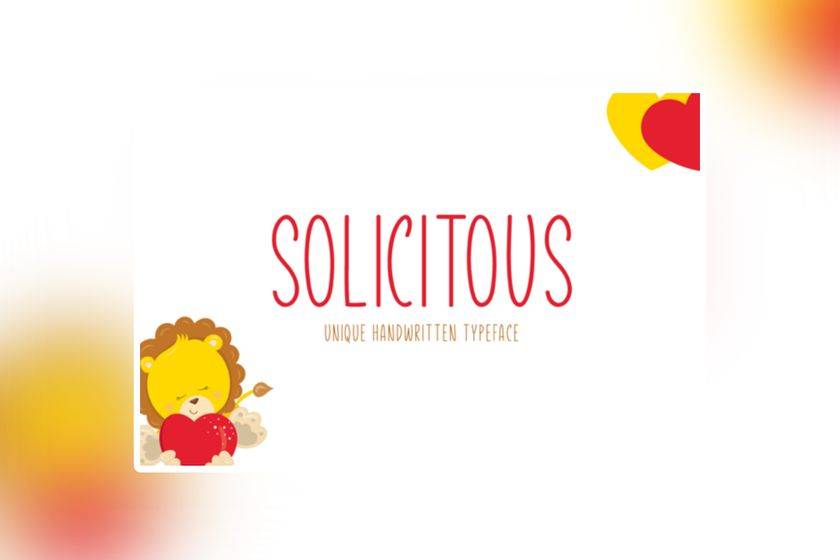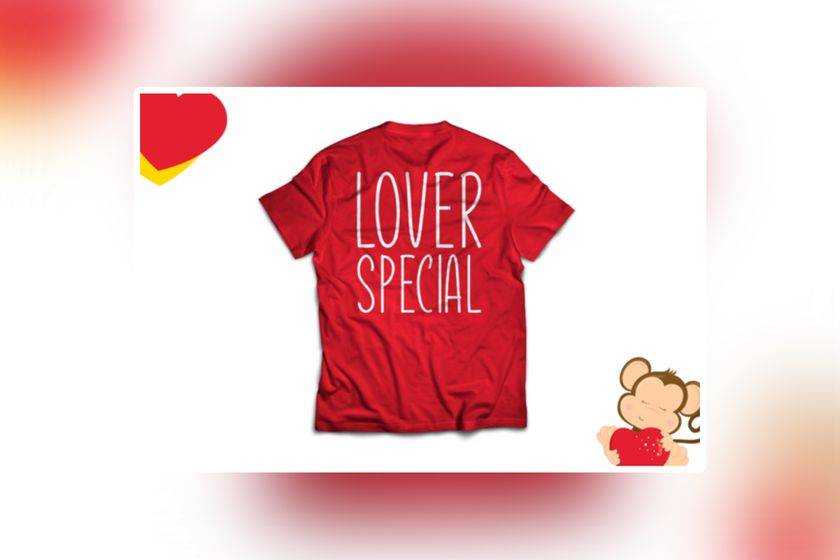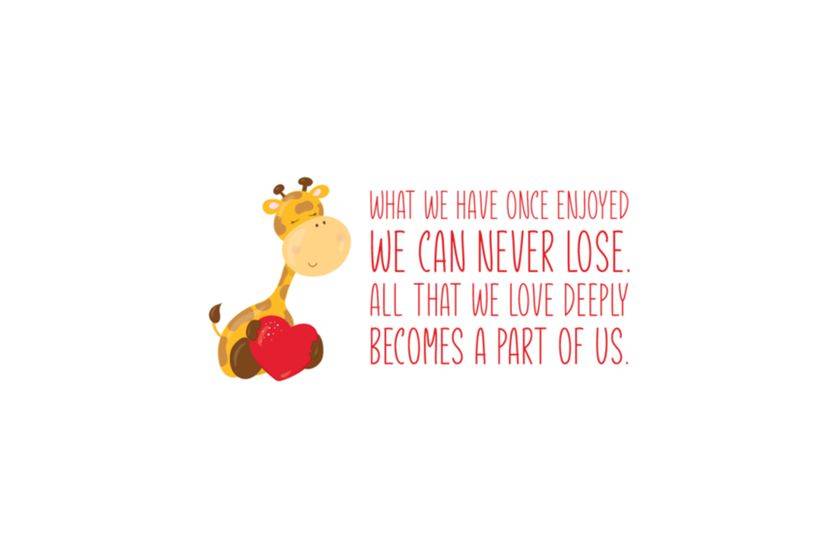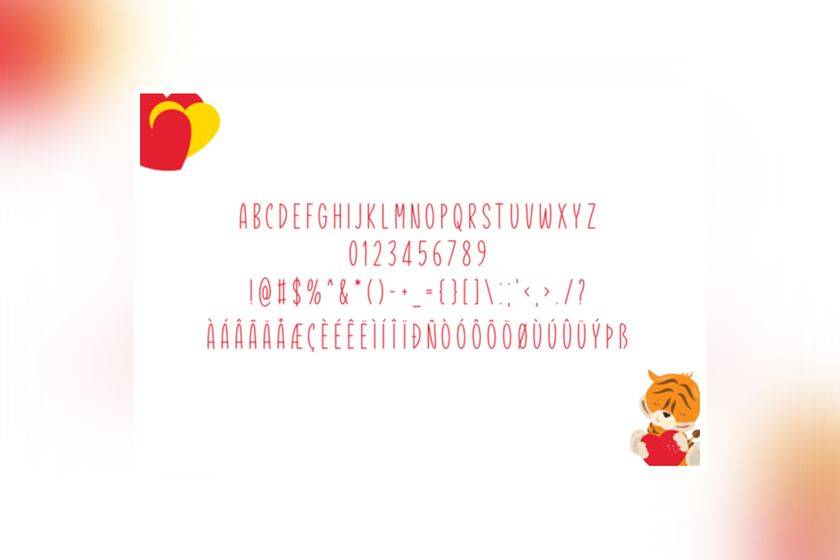
Solicitous is a narrow, hand-drawn sans serif font with tall, thin letterforms that create a quirky and playful personality. Its casual, slightly irregular lines make it ideal for projects needing a friendly and approachable touch, such as children’s books, informal branding, or creative headlines. This font works best in display uses where its unique style can shine without sacrificing legibility.
Solicitous Font
About Solicitous Font